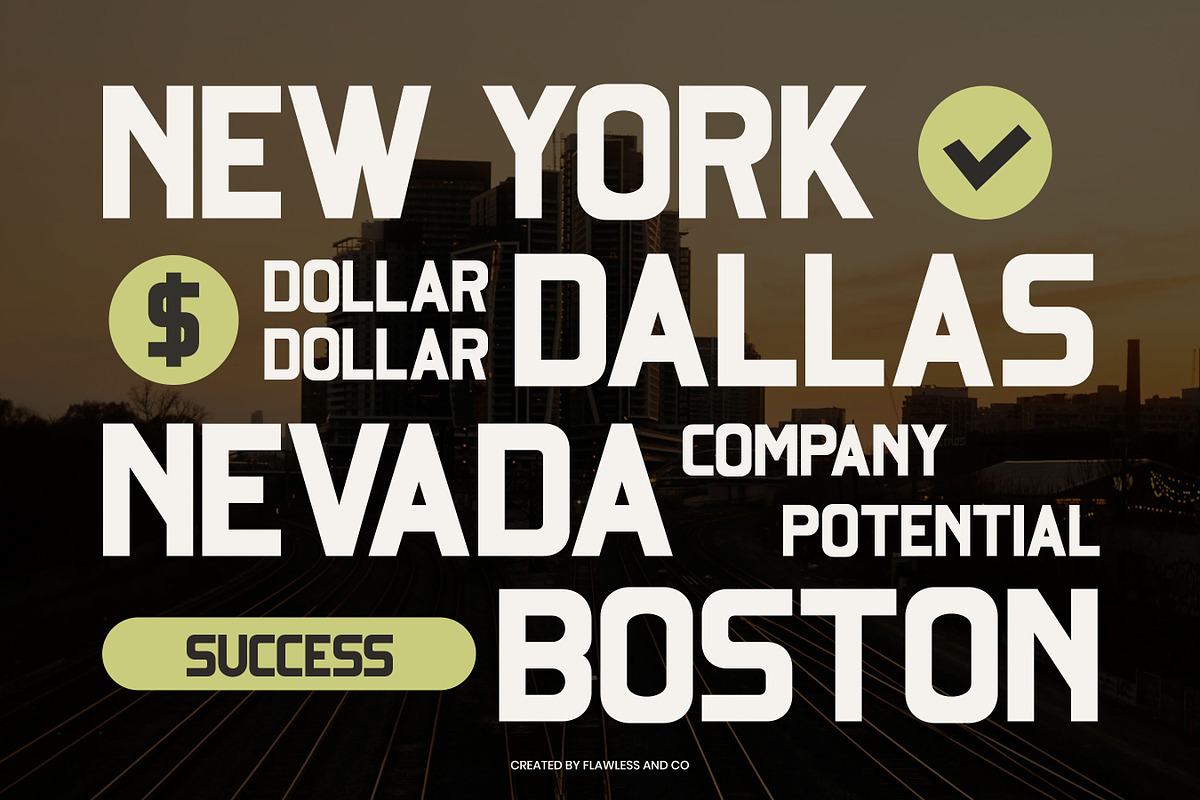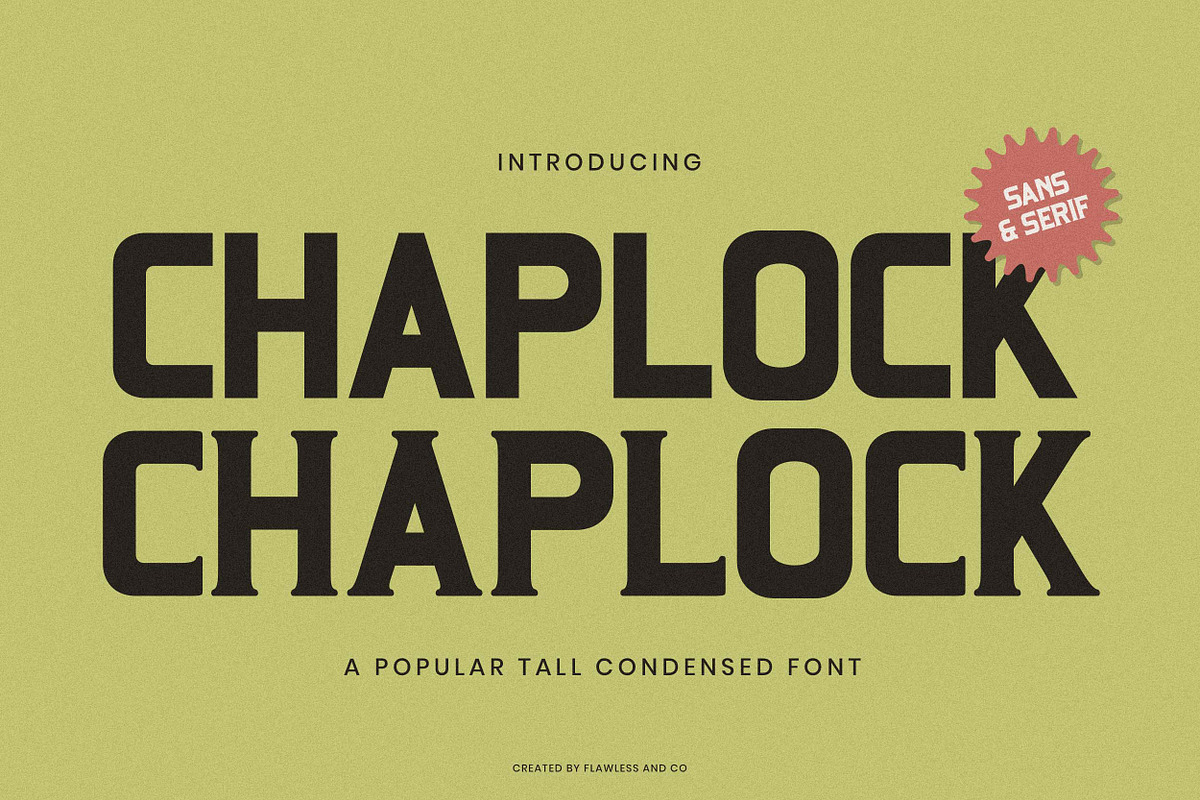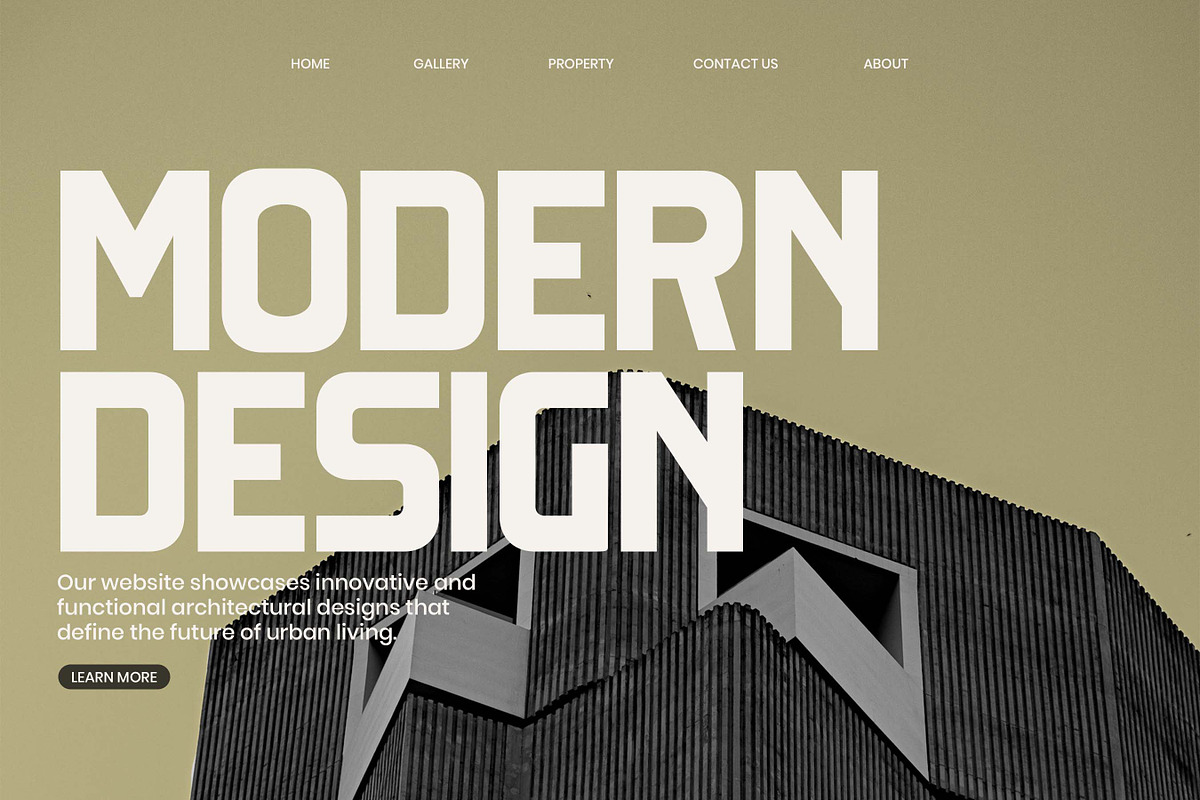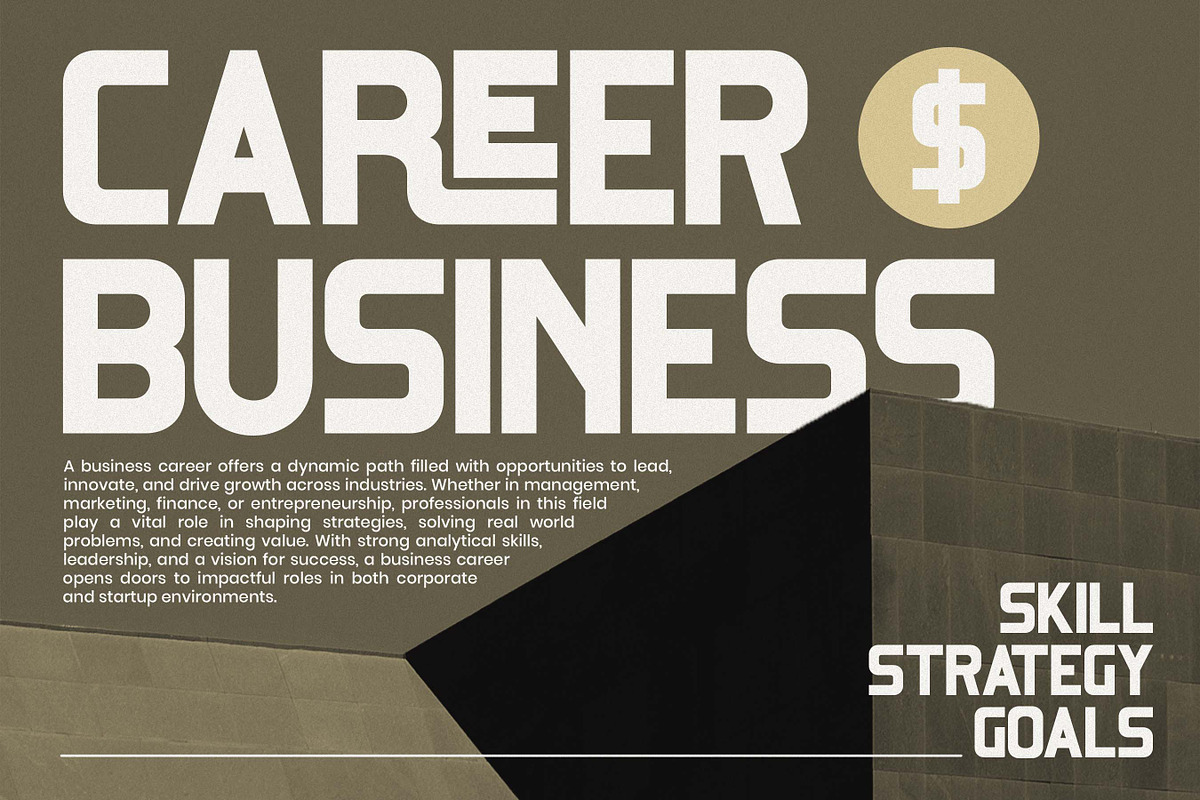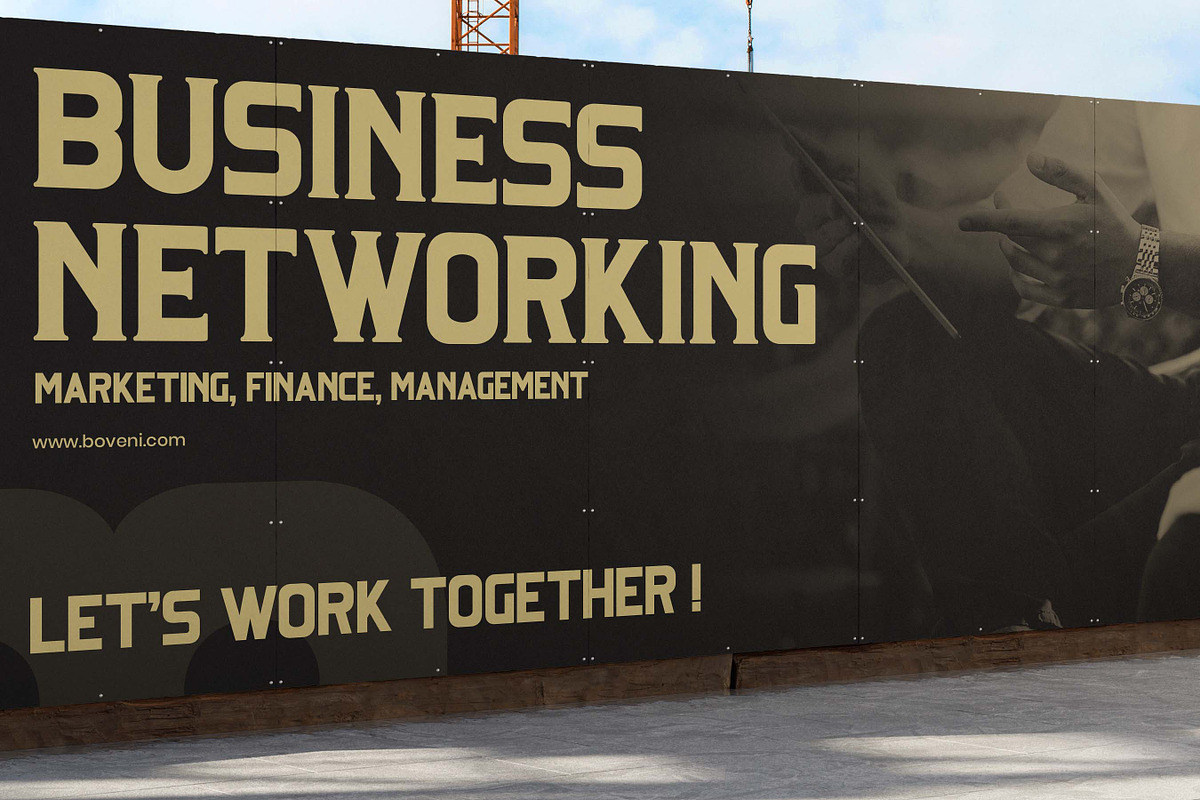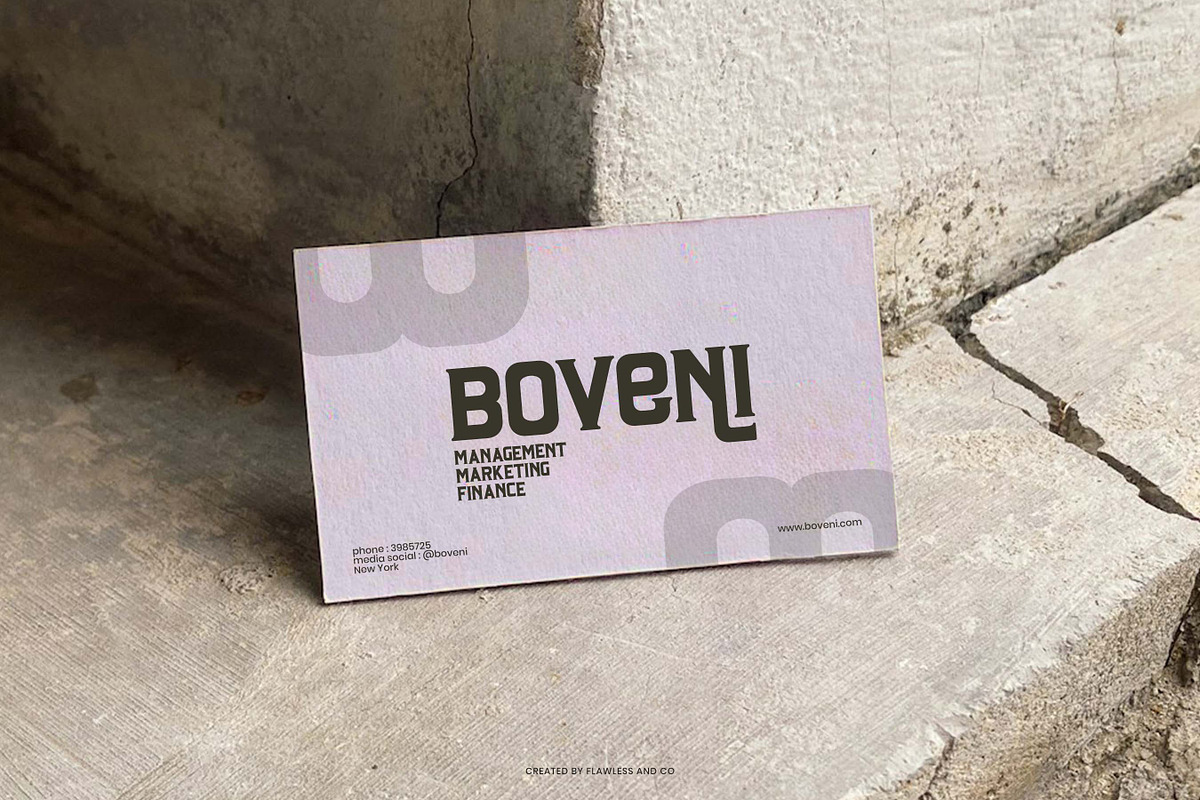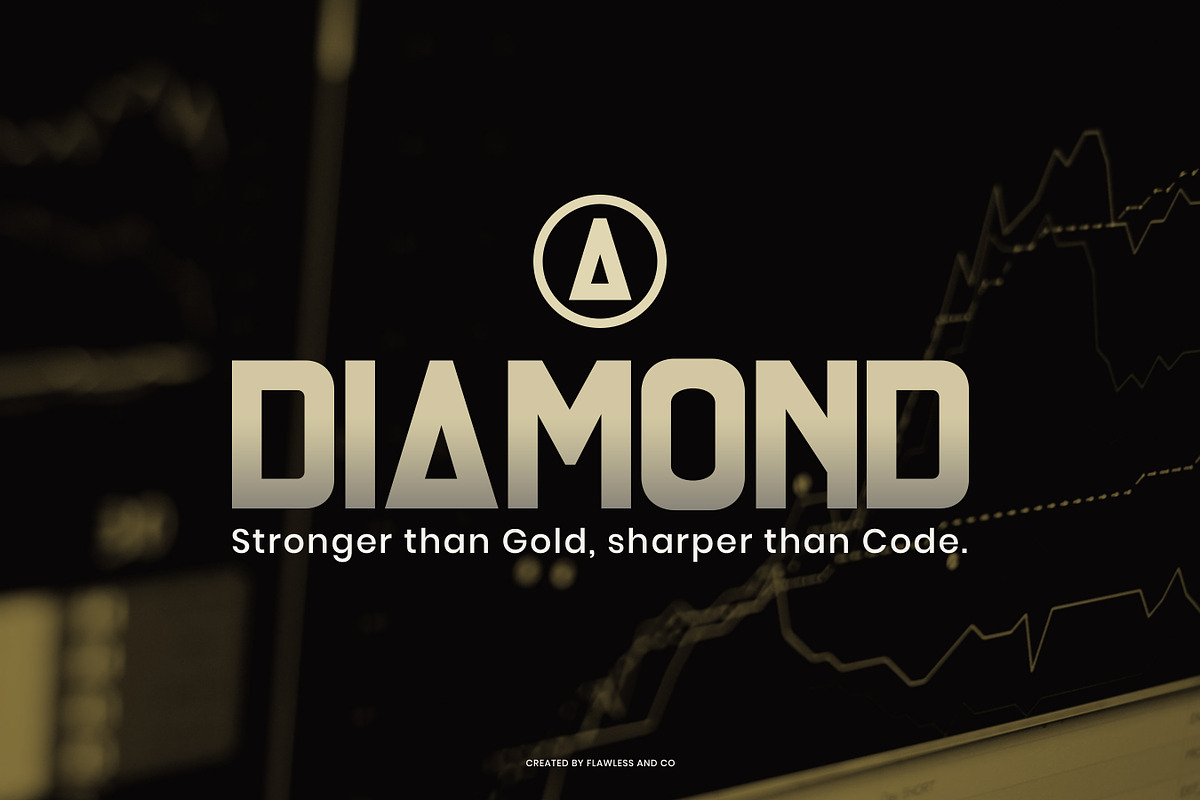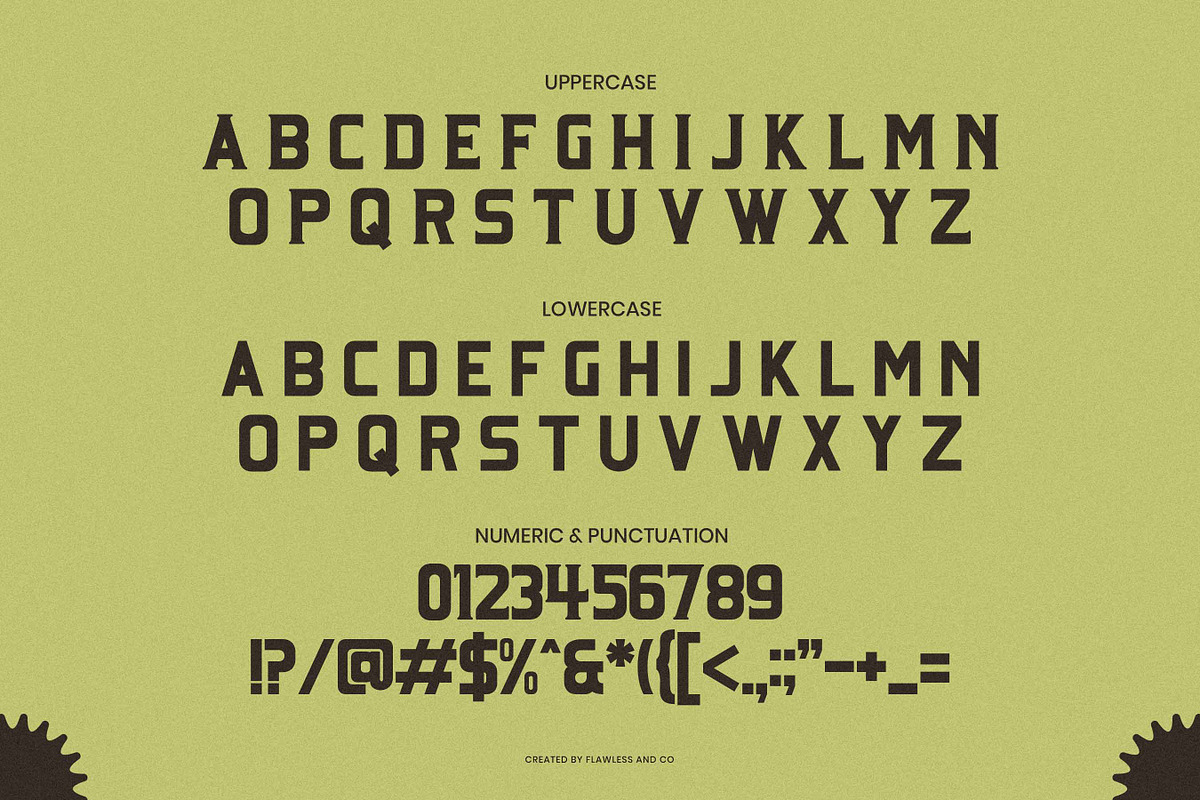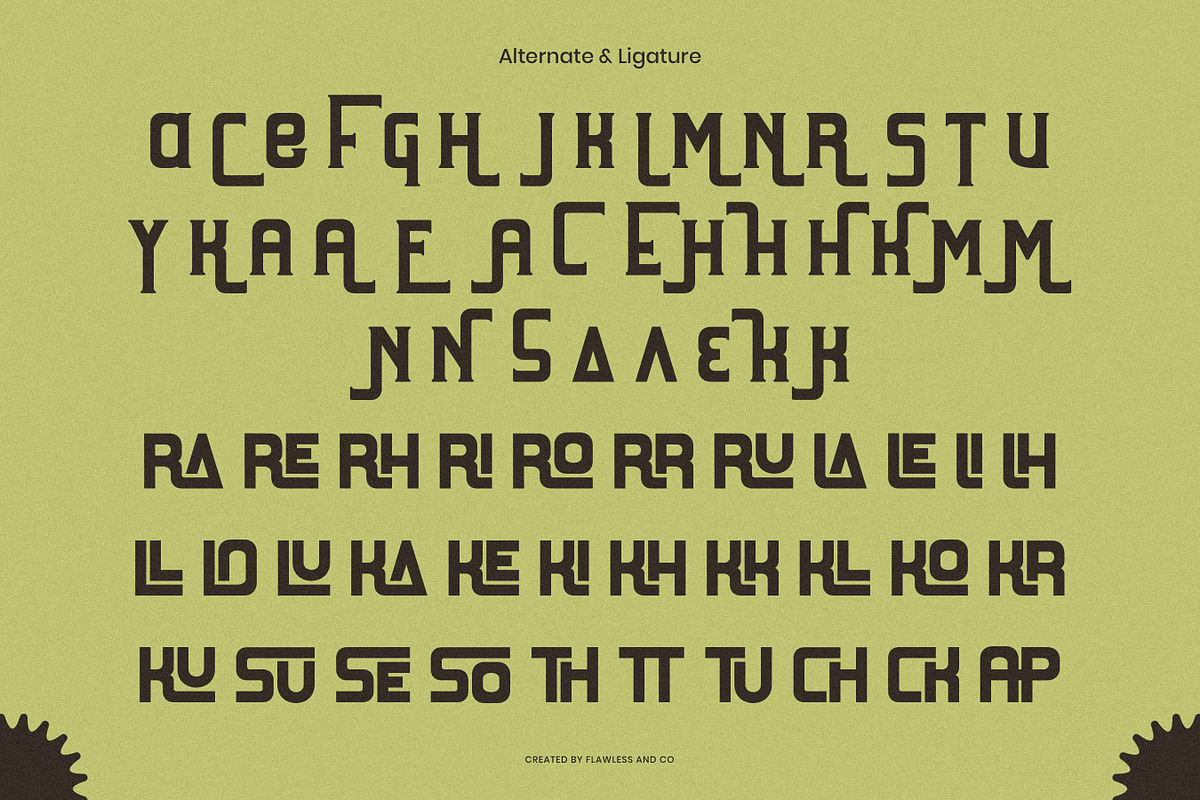
Chaplock - Condensed Sans Serif Font
CHAPLOCK – Condensed Sans & Serif Font
Chaplock is a striking typeface that blends the bold energy of condensed sans serif and the timeless style of serif details into one powerful package. Designed for maximum impact, Chaplock features ultra-narrow letterforms with sharp precision and modern flair, making it perfect for commanding attention in any layout. With its tall structure, minimal spacing, and sleek geometric lines, Chaplock is made for editorial headlines, poster designs, branding, and logotypes that need to look bold, stylish, and unmistakably strong. The font family combines the clean edge of sans serif with subtle classic touches, giving your typography a unique and confident personality. Whether you’re designing for streetwear, sports, fashion campaigns, or bold visual identities, Chaplock delivers an intense typographic presence that’s hard to ignore.
- All Caps
- Condensed Sans & Serif Styles
- Alternates & Custom Ligatures
- Multilingual Support Give your designs a bold stance and fearless aesthetic with Chaplock — a condensed font with power and precision in every letter.
Who Should Use CHAPLOCK?
CHAPLOCK is made for bold creators who want their typography to speak loud and clear. It’s perfect for:
- Graphic Designers who work on eye-catching editorial layouts or bold poster concepts.
- Brand Designers looking to build strong, high-impact logos or modern brand identities.
- Fashion & Streetwear Labels that want typography with an edge to reflect attitude and style.
- Content Creators who design thumbnails, covers, or social media graphics with punchy visuals.
- Music & Entertainment Projects where striking titles or merchandise design matter.
- Anyone who loves condensed fonts with character — bold, clean, and unforgettable. Whether you're crafting a print ad, building a brand, or designing a cover, CHAPLOCK gives you the power to stand out.
A Must-Have Font for Brand and Logo Creators
CHAPLOCK is a bold condensed sans & serif font designed with impact in mind — making it a must-have tool for brand and logo designers. Its strong presence, tight spacing, and confident letterforms make it ideal for crafting memorable wordmarks, modern logotypes, and visual identities that stand out. Whether you're building a fashion label, tech startup, or creative agency brand, CHAPLOCK brings sharpness, style, and strength to your design. Designed to be versatile, stylish, and powerful, CHAPLOCK delivers clarity and character in one package.
Why Choose Chaplock for Brand, Logo, and Business Projects?
Chaplock is more than just a typeface — it’s a bold visual tool built to elevate your brand identity with strength, clarity, and unmistakable presence. Here’s why Chaplock is a standout choice:
Strong and Distinctive Design Chaplock’s tall, condensed structure with a fusion of sans and subtle serif details gives your brand a powerful, stylish voice. It’s designed to make logos, packaging, and branding materials look sharp, modern, and confident.
Built for Bold Branding Whether you’re creating impactful logos, crafting standout business visuals, or building a brand that demands attention, Chaplock’s all-caps forms, alternates, and ligatures provide the flexibility to shape a truly unique identity.
High Visual Impact & Legibility With ultra-narrow proportions, clean geometry, and precision spacing, Chaplock ensures your message is bold and readable — even at small sizes or from a distance. It’s perfect for visual identities that need to be both striking and clear.
Ideal for Modern Business Needs From streetwear brands and sports campaigns to fashion, tech, and creative businesses, Chaplock fits any project that thrives on bold aesthetics and visual consistency.
In short: Chaplock brings strength, edge, and clarity to your brand. It’s the perfect choice when you want your business to look bold, stylish, and instantly recognizable.
Suitable For:
- Brand identities and logo design
- Business presentations and corporate materials
- Editorial layouts and custom book designs
- Lifestyle and personal branding projects
- Social media graphics and marketing content
- Product packaging and bold stationery